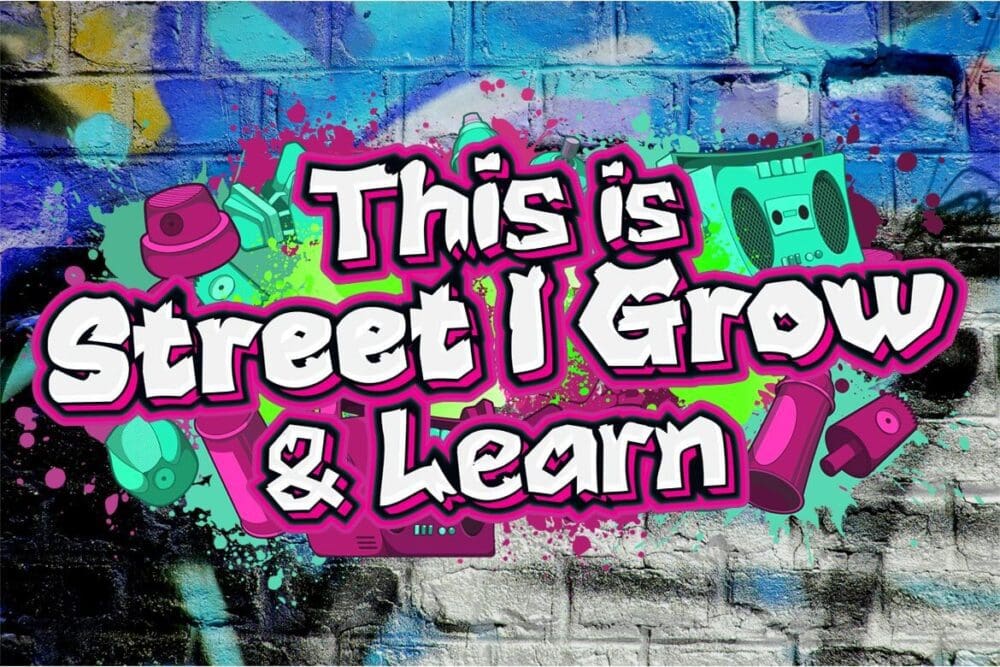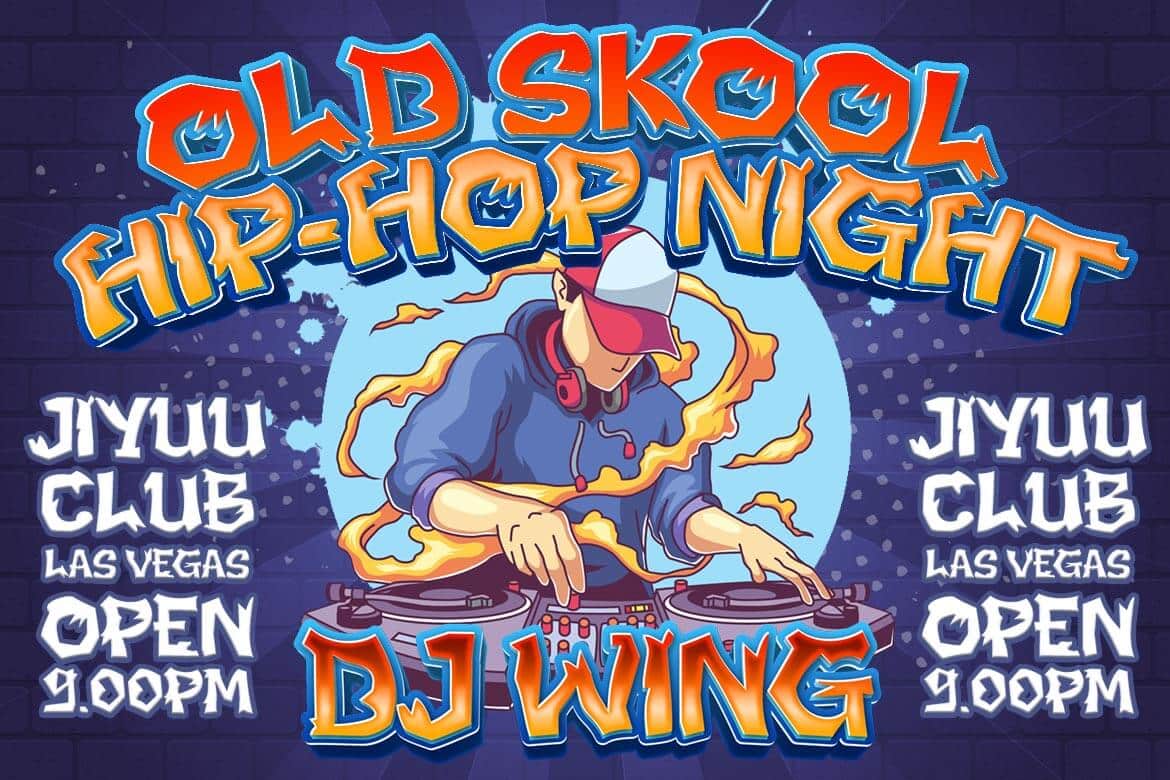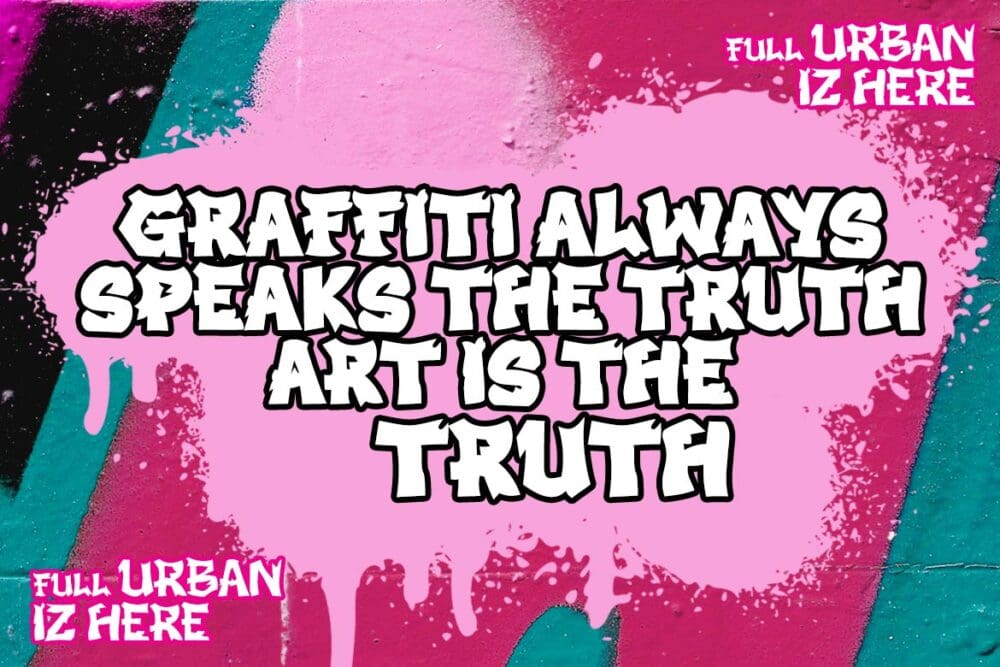
Bekorg Font
Bekorg is a graffiti-themed font with an unusual and weird shape, yet its application was developed with neatness and harmony in mind. Use this font in your projects to create a cool style that will instantly capture and amaze your audience. This graffiti font is great for product logos, poster titles, headlines, packaging, film titles, logotypes, gorgeous writing, and trendy graffiti designs, among other things.